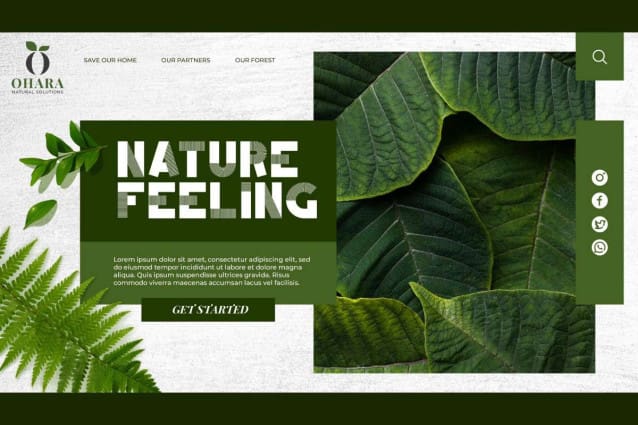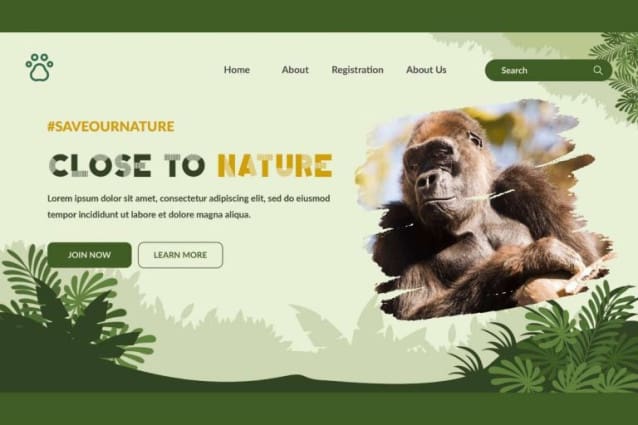
Green Highlight Font
Green Highlight Font is a modern display font with a unique style. The block font is accompanied by lines like a spring spiral effect in some places on each letter to create highlights. It provides creative visual appeal to suit any design, such as billboard, blogs, brand logo, brochure, cards, cover, flyer, header, invitation, packaging design, pamphlet, poster, product label, quotes, screen print, signage board, stationery, sticker, title, website, and more.
Green Highlight Font is an interesting font that deliberately displays experimental combinations to give a different feel. It will make projects for any industry look boldly friendly, such as animal park, botanist, cafe, film, florist, gardener, printing, publishing, retail, etc. Actually, the theme of this font could be skewed towards the animal world, but what is clear is that its use could be wider.